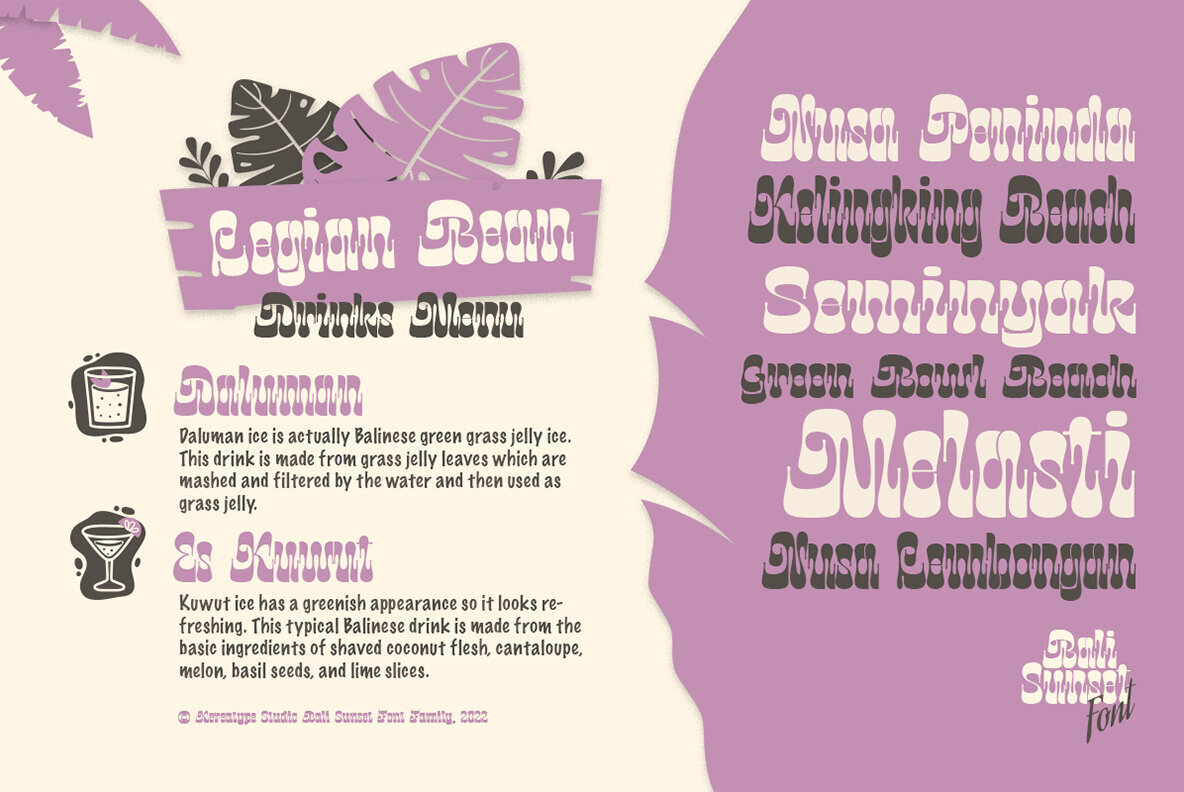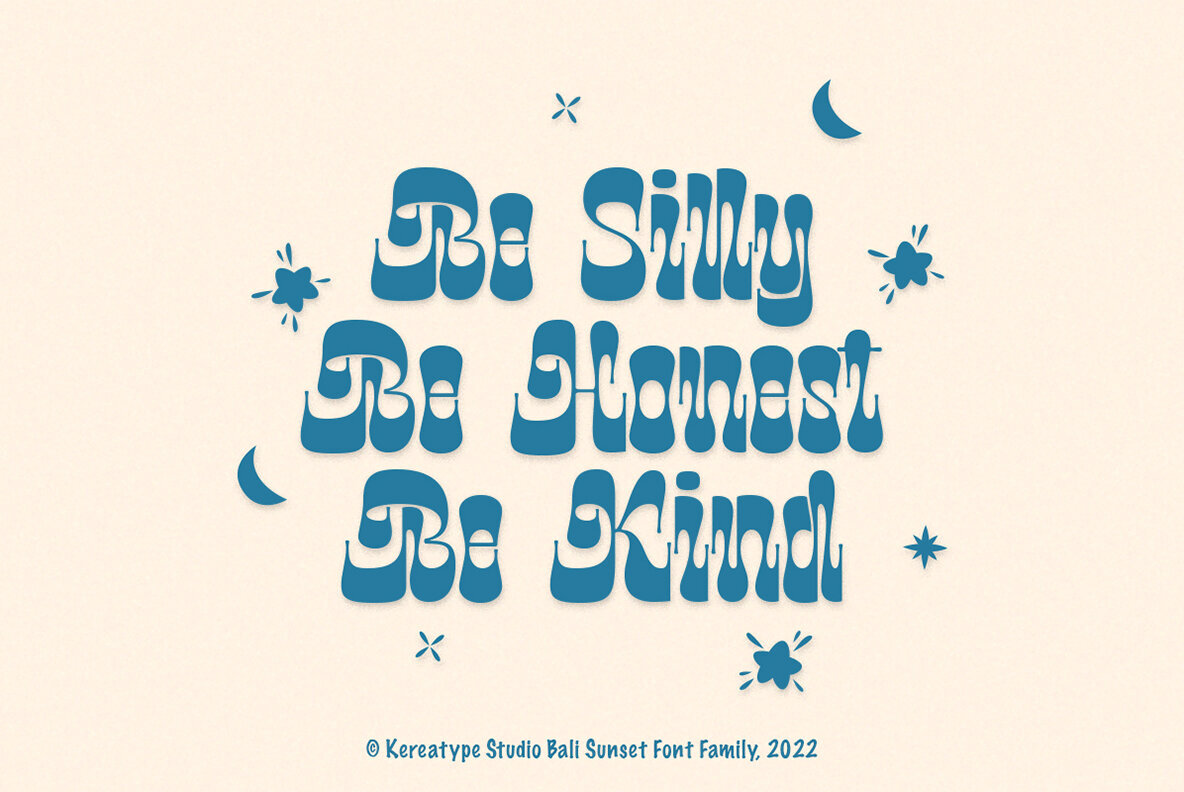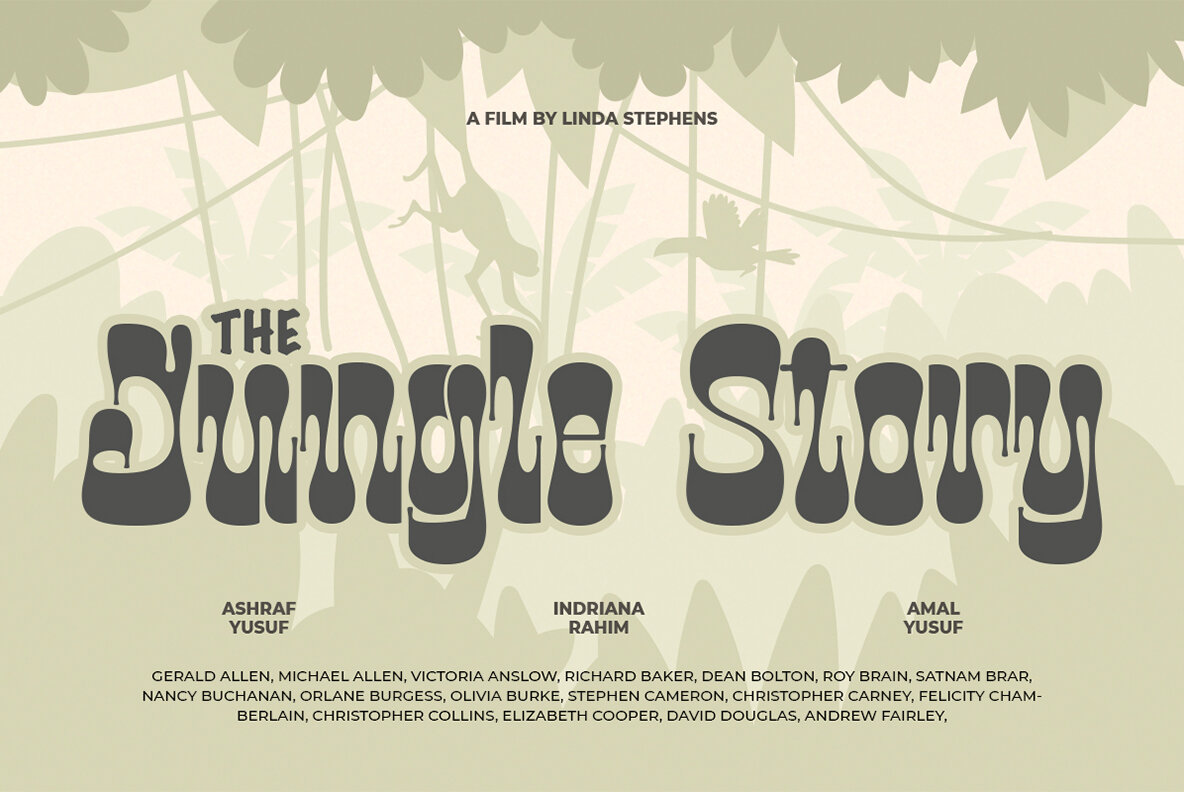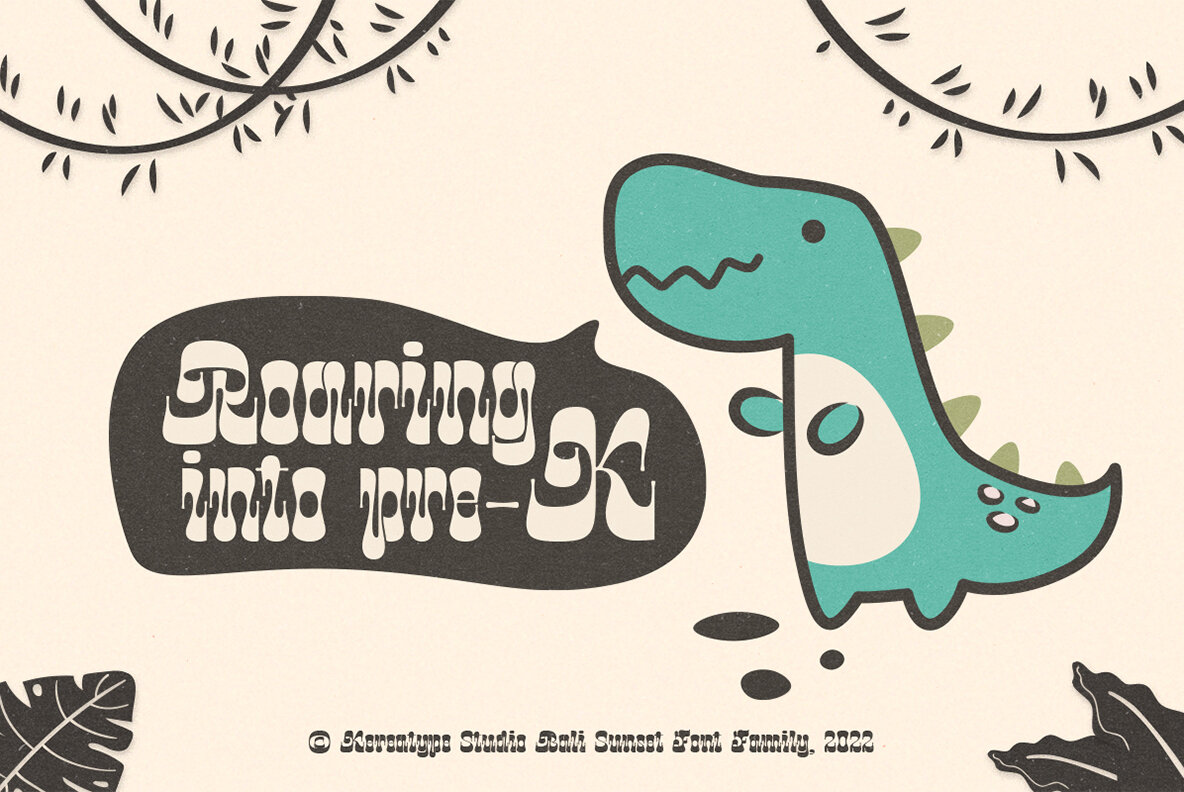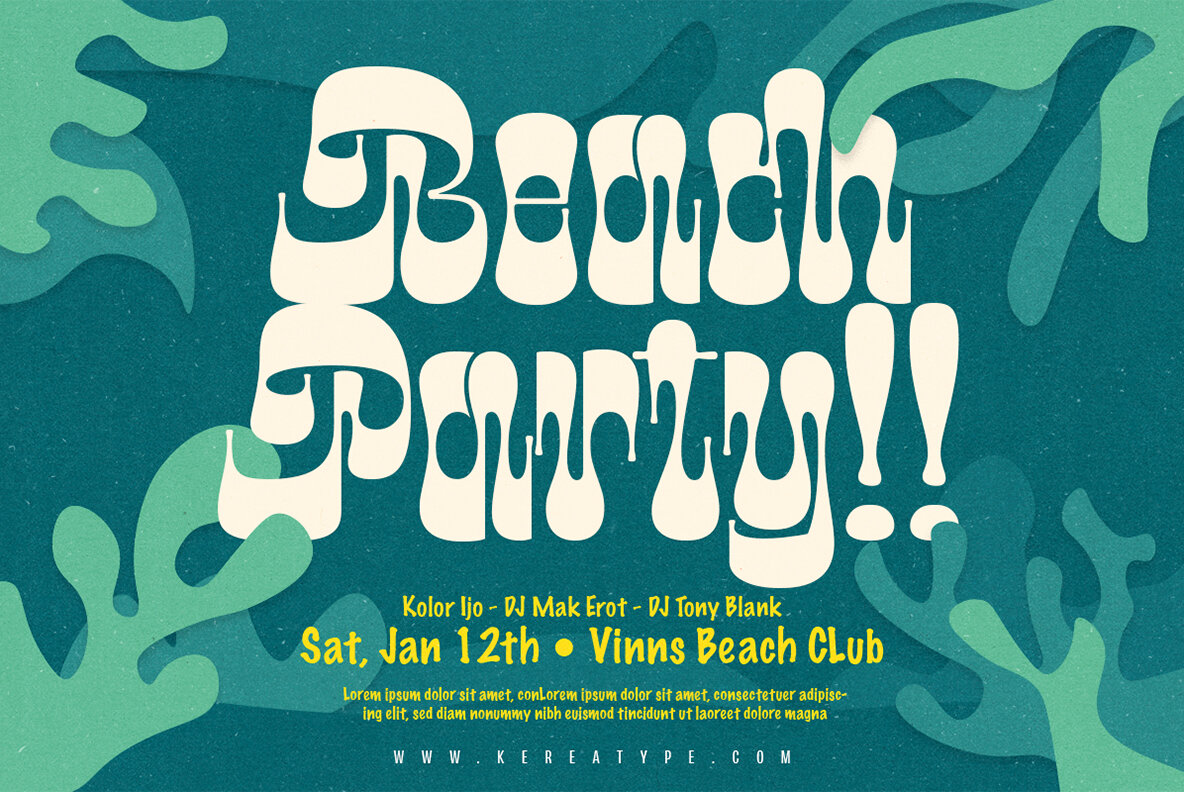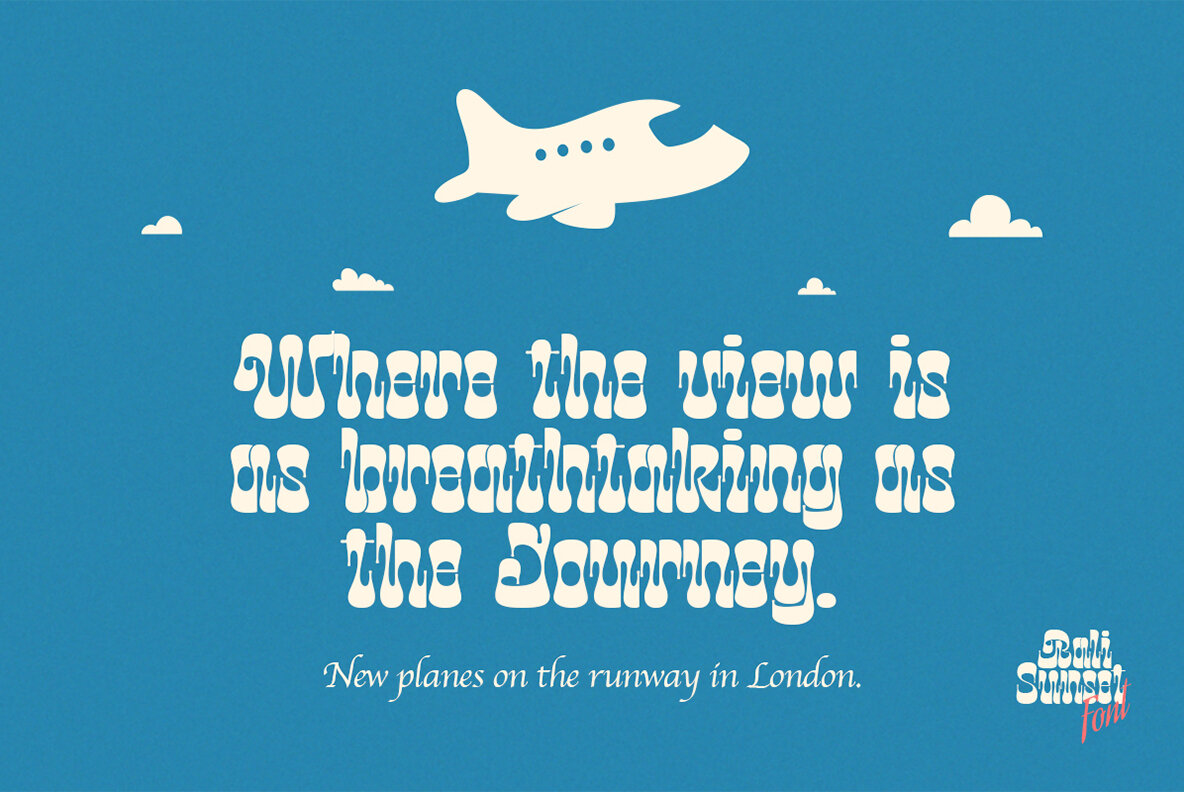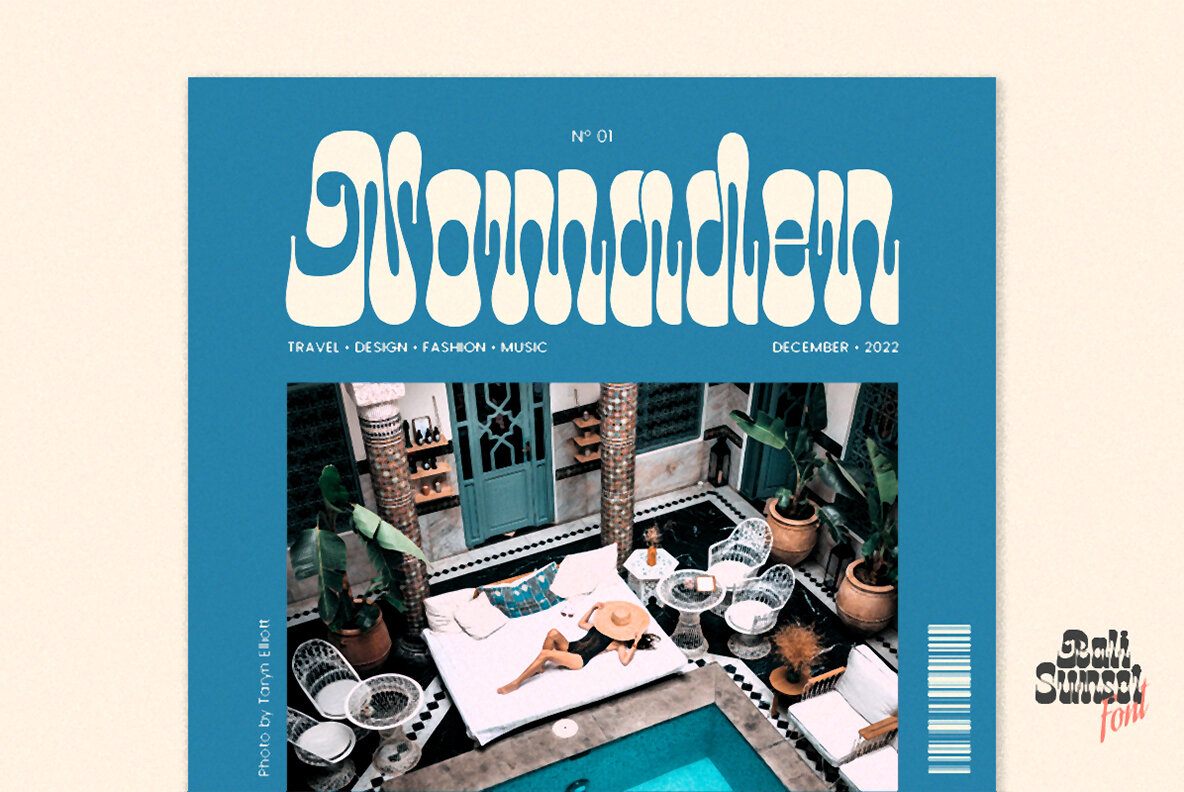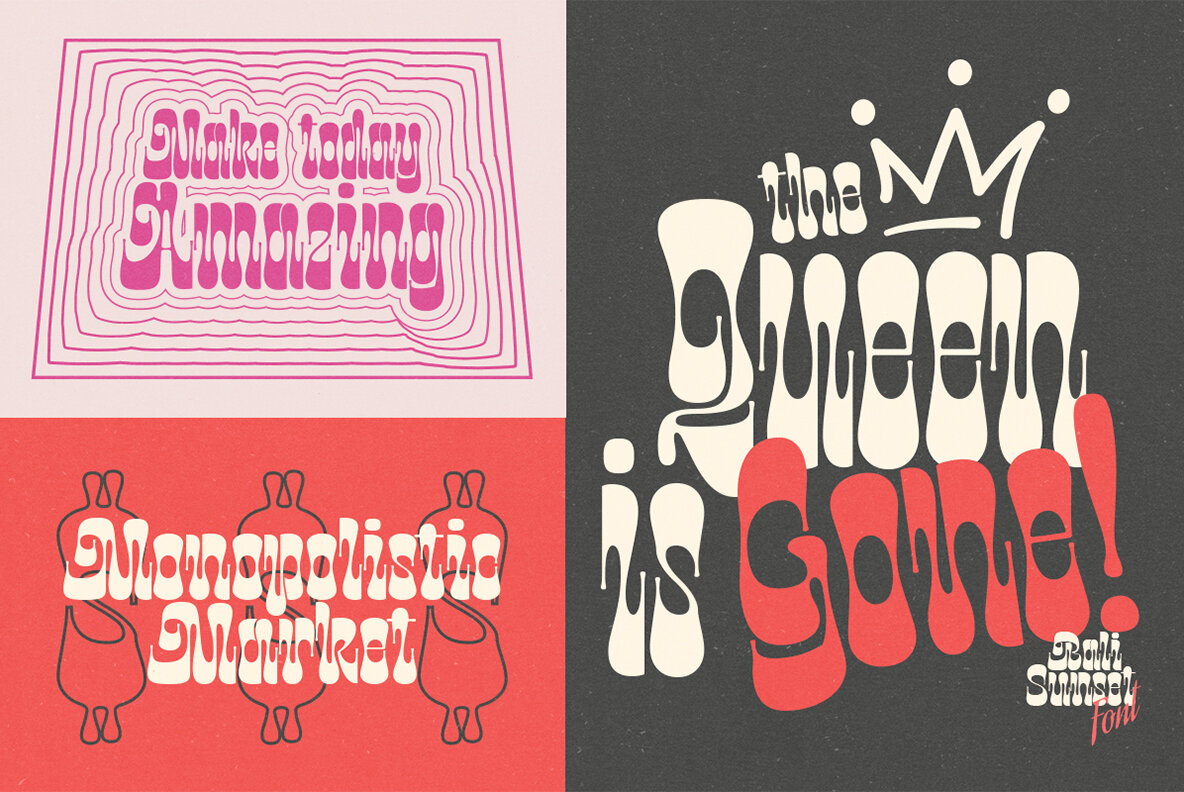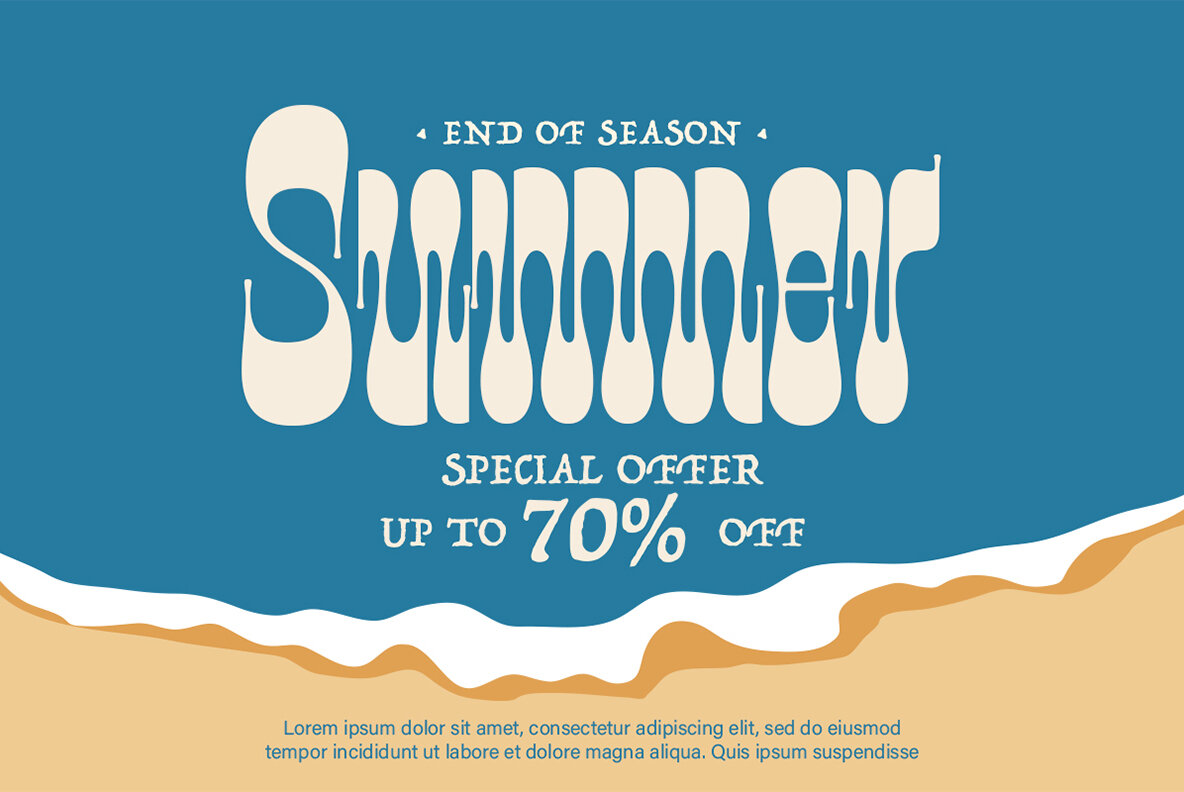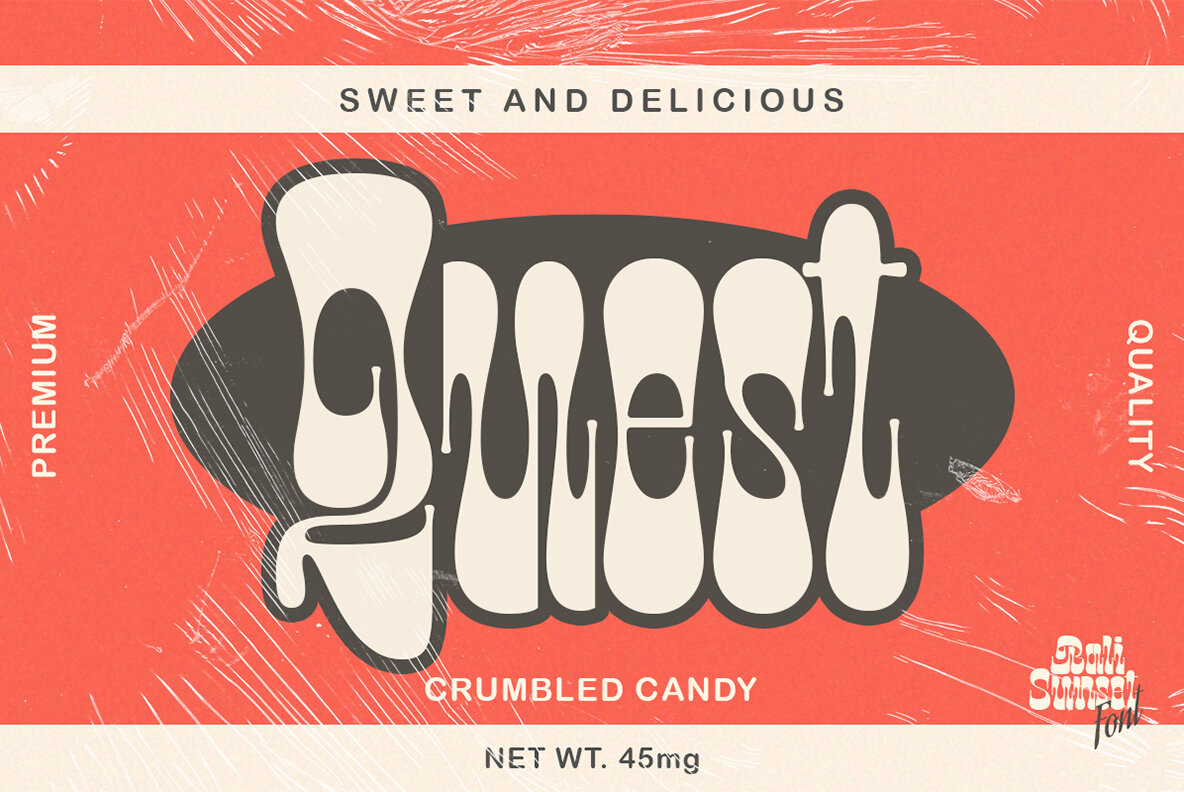
Bali Sunset Font
Bali Sunset Regular
Bali Sunset Semi Condensed
Bali Sunset Semi Expanded
Bali Sunset Extra Condensed
Bali Sunset Extra Expanded
Bali Sunset Ultra Condensed
Bali Sunset Ultra Expanded
Bali Sunset Condensed
Bali Sunset Expanded
Inspired by Aksara Java letter and Art Nouveau, Bali Sunset is an experimental display font that stands out with its reverse contrast. Boasting a range from Ultra Condensed to Ultra Expanded widths, this font offers unparalleled versatility to suit various design needs. With its organic and psychedelic vibe, Bali Sunset is perfect for crafting eye-catching designs. Its distinctive style shines in posters, apparel, and product packaging, offering a fresh take on modern aesthetics.Bali Sunset: A Unique Display Font with Reverse Contrast